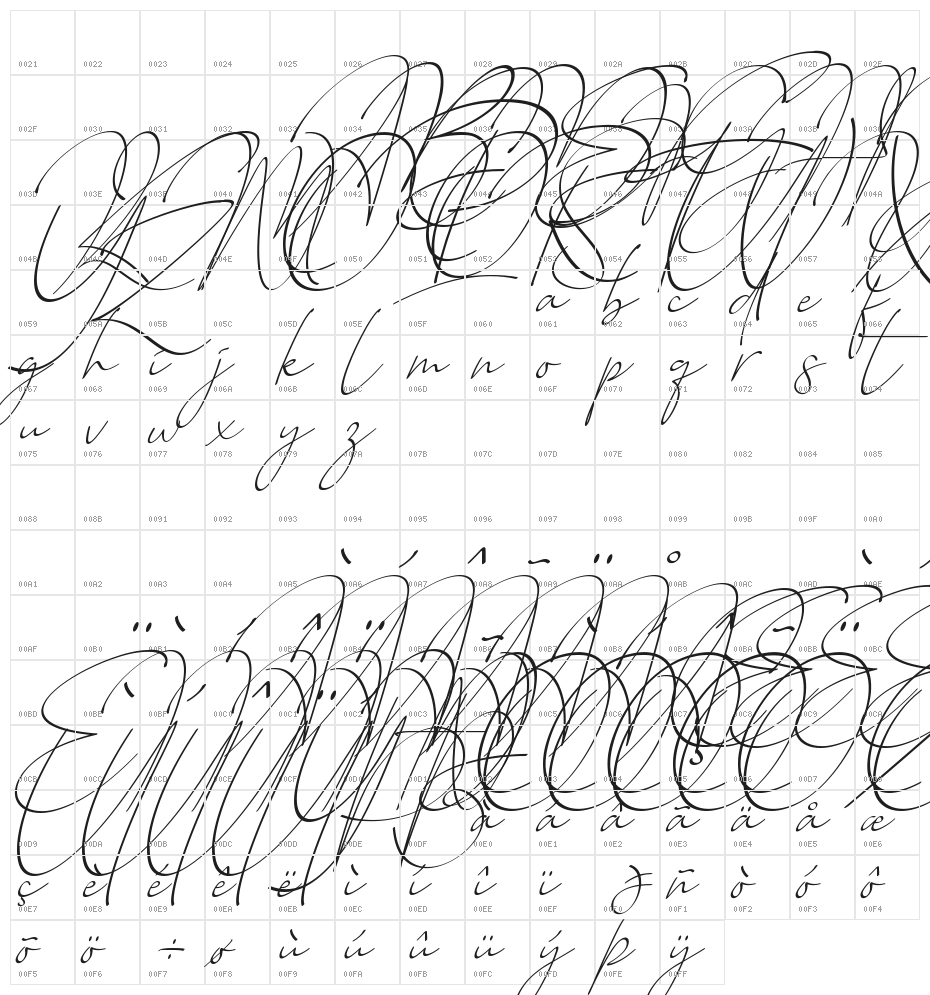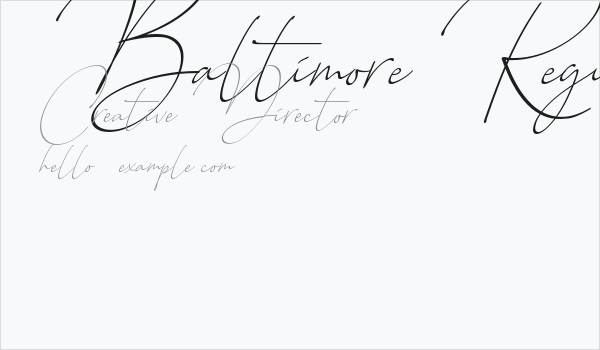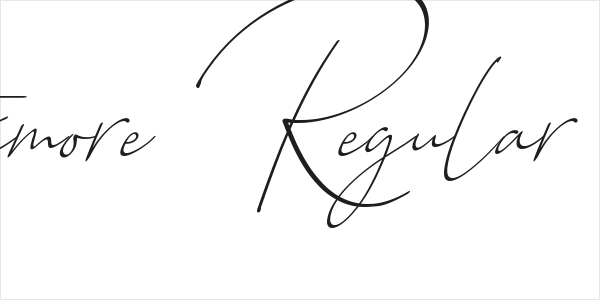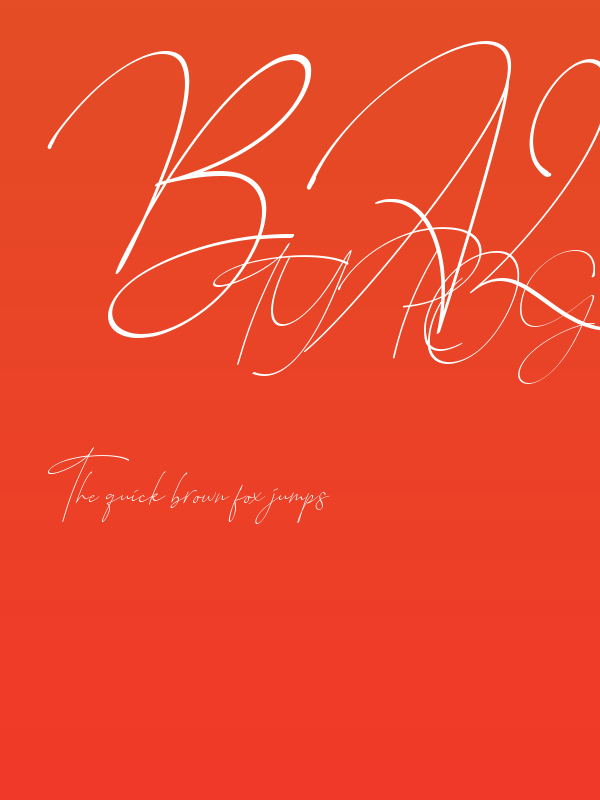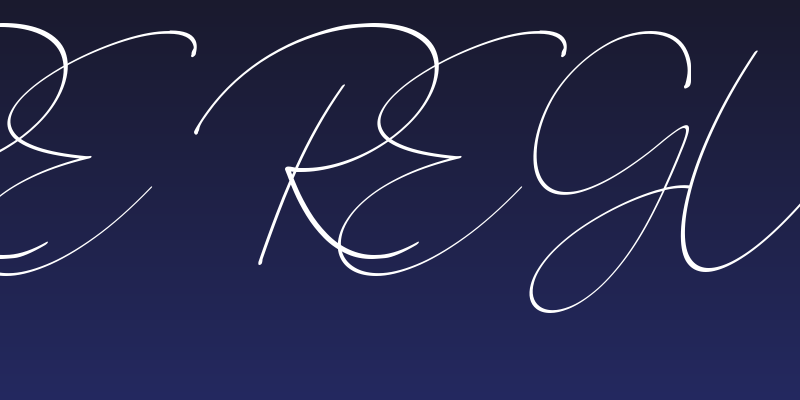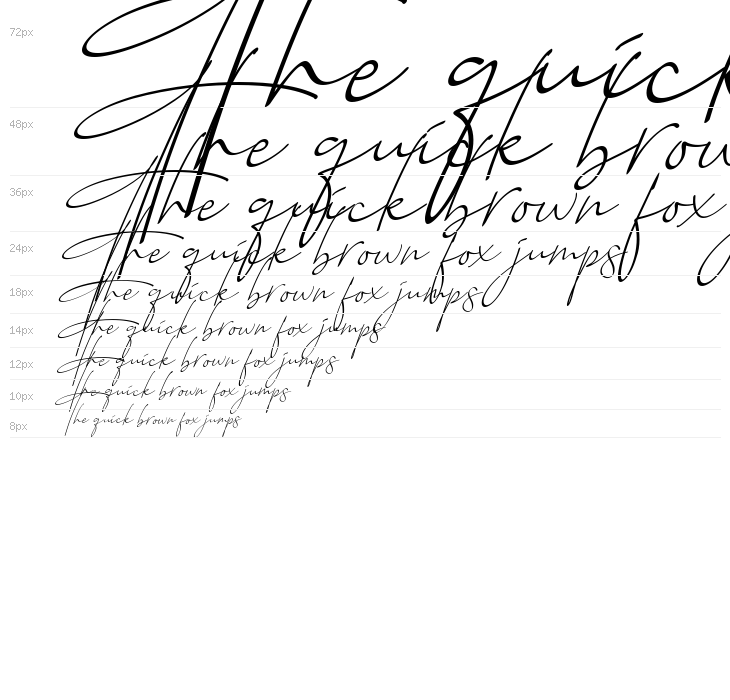
Baltimore Regular - Italic Font
Baltimore Regular - Italic Description
This font exudes elegance and sophistication with its fluid, cursive style. The letters are intricately connected, showcasing a graceful flow that mimics natural handwriting. The uppercase letters are slightly more restrained, maintaining a consistent height, while the lowercase letters exhibit a dynamic range of ascenders and descenders. The strokes are delicate with a subtle variation in thickness, adding to the font's refined appearance. The overall impression is one of elegance and formality, making it suitable for upscale and artistic applications.
| Use Case | Invitations, Branding, Artistic projects |
| Proposed Projects | Ideal for wedding invitations, elegant branding, artistic projects, and formal stationery. |